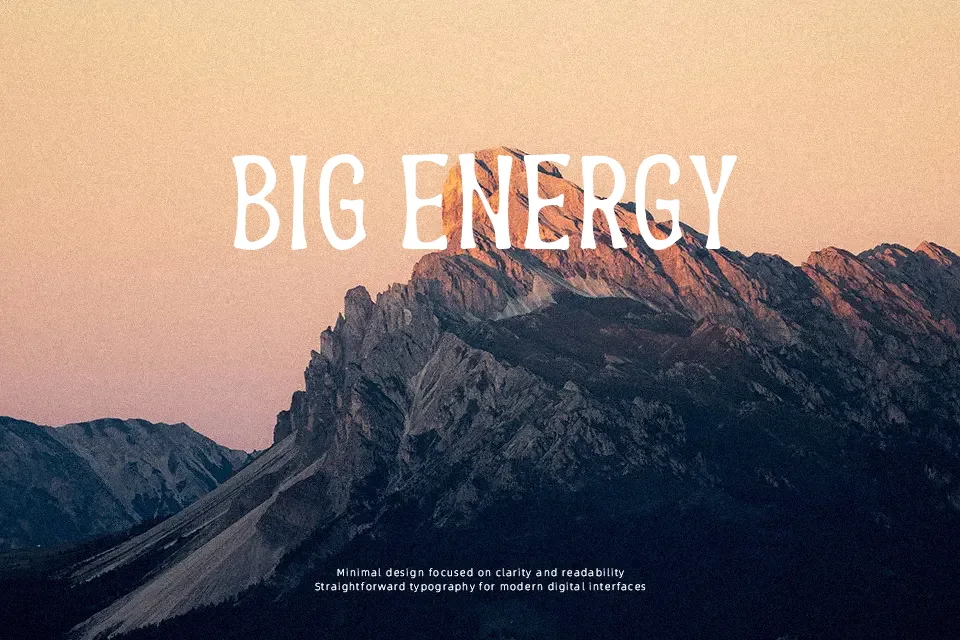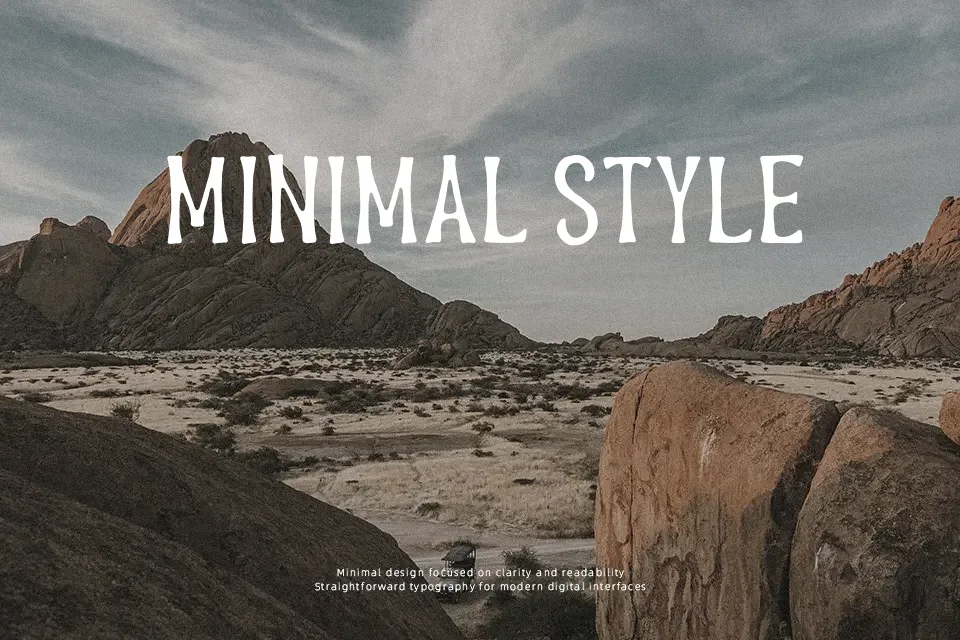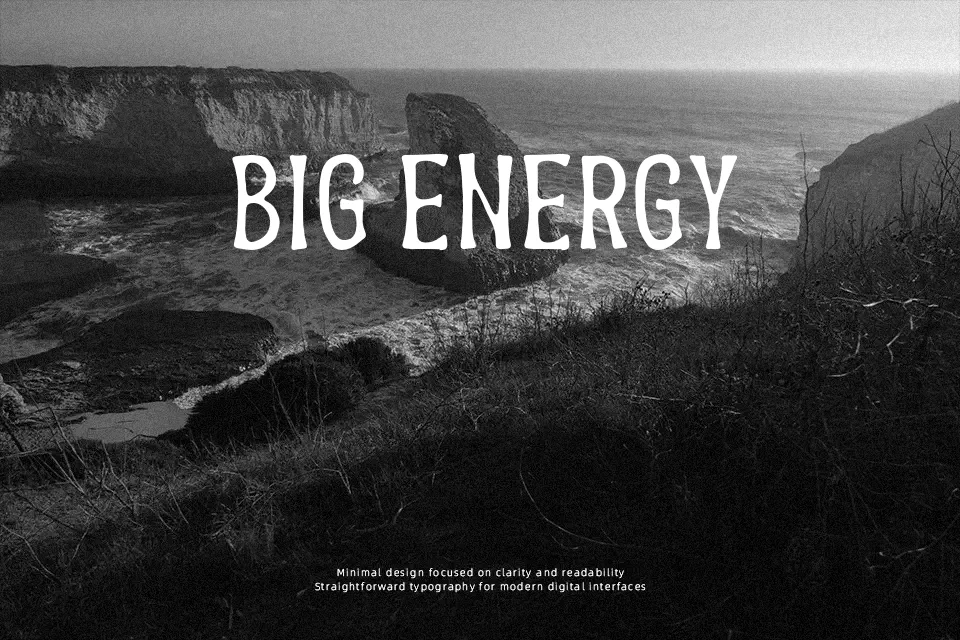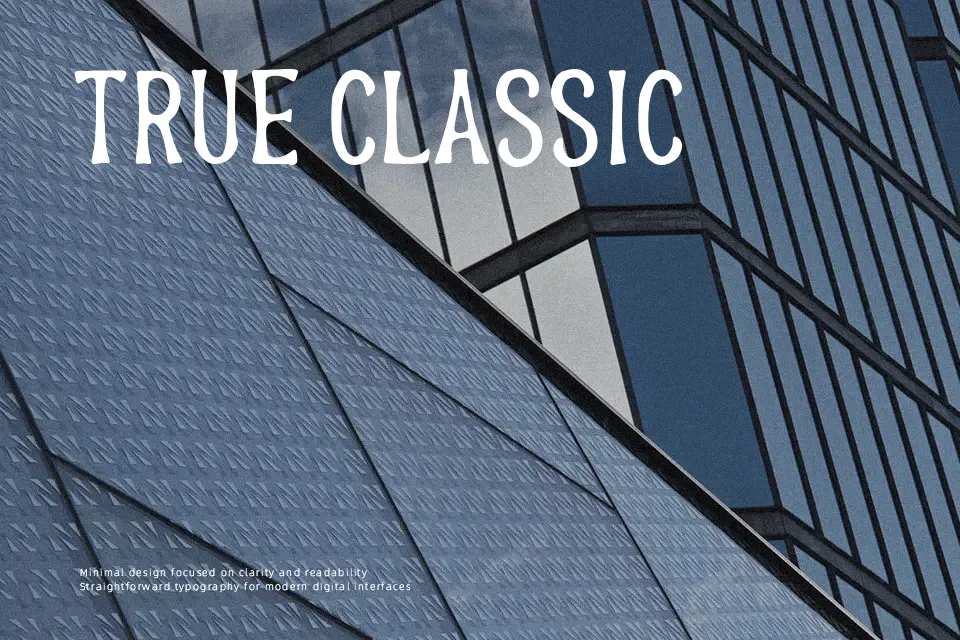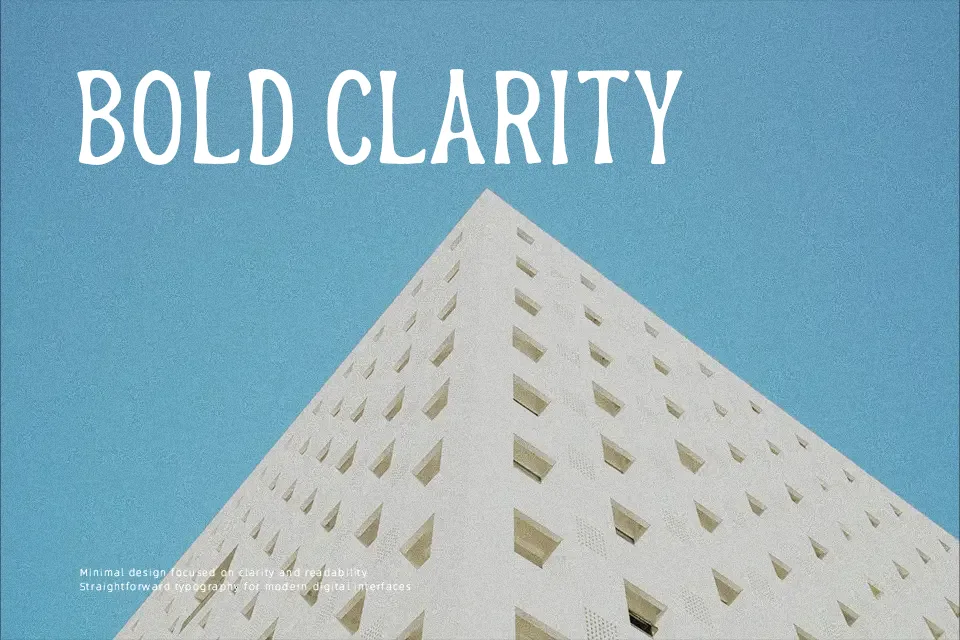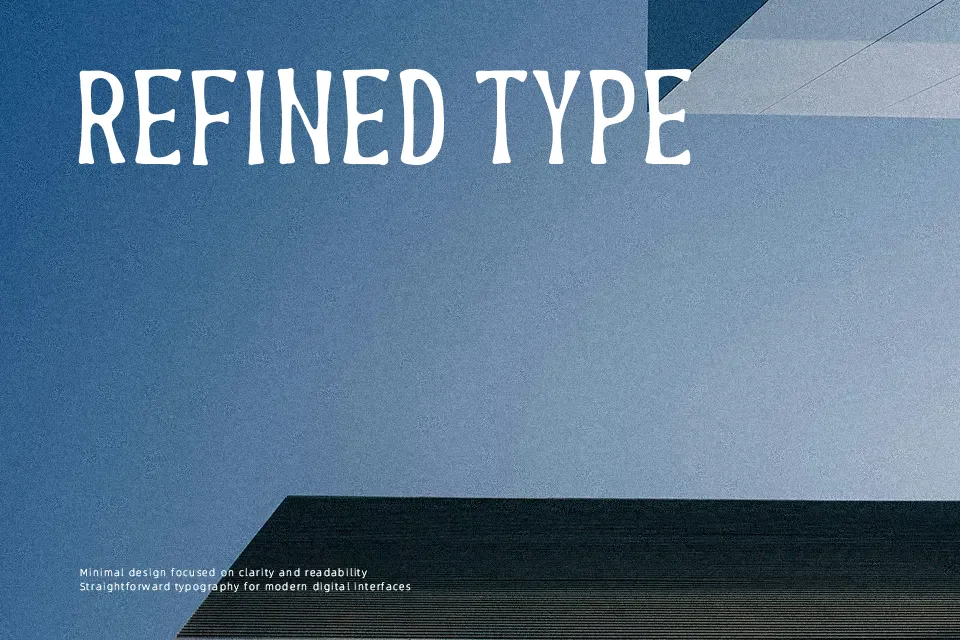
Branders Font
Designed by Saridezra
Branders Font combines a condensed structure with rough, hand-drawn strokes that read as bold and tactile without feeling sloppy. Letters sit fairly tight, with vertical emphasis and subtle texture that hints at marker or brush work rather than clean vector lines. The overall impression is casual and crafted, leaning more toward vintage display than formal branding. It works especially well on emblem logos, badges, merch graphics, coffee or bar labels, and social posts where type becomes part of the illustration. For long paragraphs, small UI text, or brands needing a polished corporate voice, it can feel too compressed and gritty, so I would reserve it for short headlines and identity marks instead.
badge-style logos and emblems
vintage-themed posters and merchandise graphics
packaging for coffee, craft goods, or bar-related brands
body copy or long editorial text blocks
corporate or highly formal brand identities
small UI elements or dense data visuals